With certain Windows fonts there is a display issue where ligature-kerning seems to flip out and make the two letters bold. Here's a screenshot of an email using Helvetica in Firefox:
As you can see, it seems to be something about the way crossed characters (t and f) connect to each other and letters like i.
I've had this problem for a very long time (over multiple systems) and wondered if anybody has ever seen similar issues popping up and found a way to fix them.
Note: I think this does just affect Firefox. Chrome and LibreOffice are both fine.
Another solution that will work with all applications, including Libre Office, is given by aldeby:
Log out and in again, and Calibri (and possibly some other fonts) will look much better (actually even better than with the other answers given here, because the ugly bitmap substitutions are completely disabled).
5Disabling ligatures (see Calimo's fonts.conf answer) is the wrong direction! It may remove those over-aliased "bold" ligatures in fonts like Calibri, but it also removes some of the beauty of typography. That's rather similar to shrinking the font until you can't tell the difference.
I solved this for my system by removing the Calibri font, installing Carlito, which is "metric-compatible with Calibri" and is packaged with "a mapping entry to fontconfig (local.conf)," and refreshing my font cache:
Before removing Microsoft's Calibri, I saved a test document in LibreOffice that used Calibri and took a screen shot. After doing that, I quit LibreOffice, opened it again, and then loaded my test document. The "Calibri" font name was italicized to indicate that it was substituted for. I took a screen shot of this substituted version and pasted it below the original:
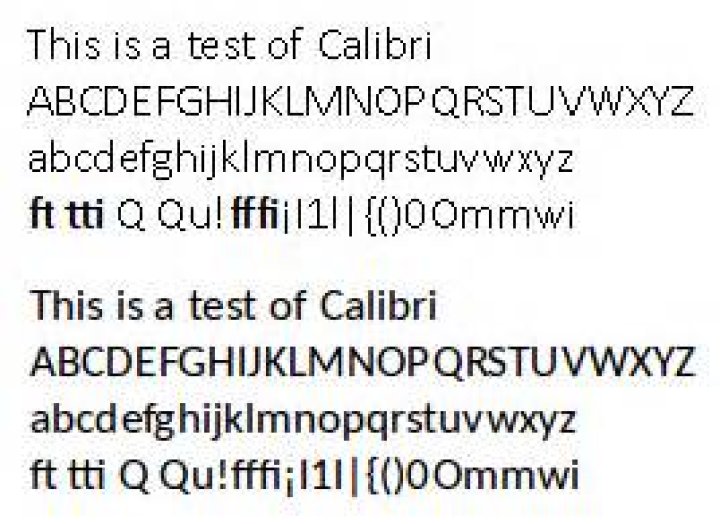
The above text is a pair of screen shots of 13pt Calibri, with Microsoft's Calibri above Carlito as matched by fontconfig. There is no bold, no formatting, "pair kerning" enabled, as rendered by LibreOffice 5.0.5.1.
Carlito is quite close to Calibri, ligatures render properly, and it's much prettier overall.
You can do the same with Caladea for Cambria with fonts-crosextra-caladea and you can use Google's Croscore fonts Arimo, Tinos, and Cousine for Arial, Times New Roman, and Courier New with fonts-croscore. Learn more at Debian's Substituting Calibri and Cambria Fonts wiki.
But what about Helvetica?
This question asks about the Helvetica font, which is Apple's preferred sans-serif font. Microsoft preferred Arial before it changed to Calibri. The default Linux mapping varies by distribution, but it's typically either Nimbus Sans L or else Liberation Sans, e.g.
Helvetica has quite the culture surrounding it and I can't find a font that is fully metric-compatible with Helvetica. Arial (and fonts metrically compatible with Arial, including Liberation Sans and its fork, Arimo, have identical character widths (which mean they're "mostly" metric compatible; text will wrap the same way as with Helvetica). Among the free fonts, Liberation Sans and Nimbus Sans seem to have the most similar aesthetics.
There's also IBM Plex, a new font with big money behind it[1][2]. Plex is designed to replace Helvetica (it also has condensed sans as well as serif and monospace fonts) in all of IBM's materials, though it is not at all metric-compatible to Helvetica or other fonts. Font Squirrel has a nice view of samples of the Plex fonts.
Fontconfig aliases
To manually alias Helvetica to another font (and therefore not need to remove Calibri and/or Arial, though in that case you should also manually alias those), edit your ~/.config/fonts.conf file (for older systems, that's ~/.fonts.conf. To avoid confusion, I symlink the latter to the former) as noted in this answer, adding a new <alias> section for Helvetica (this one uses Arimo. Make sure you have it installed):